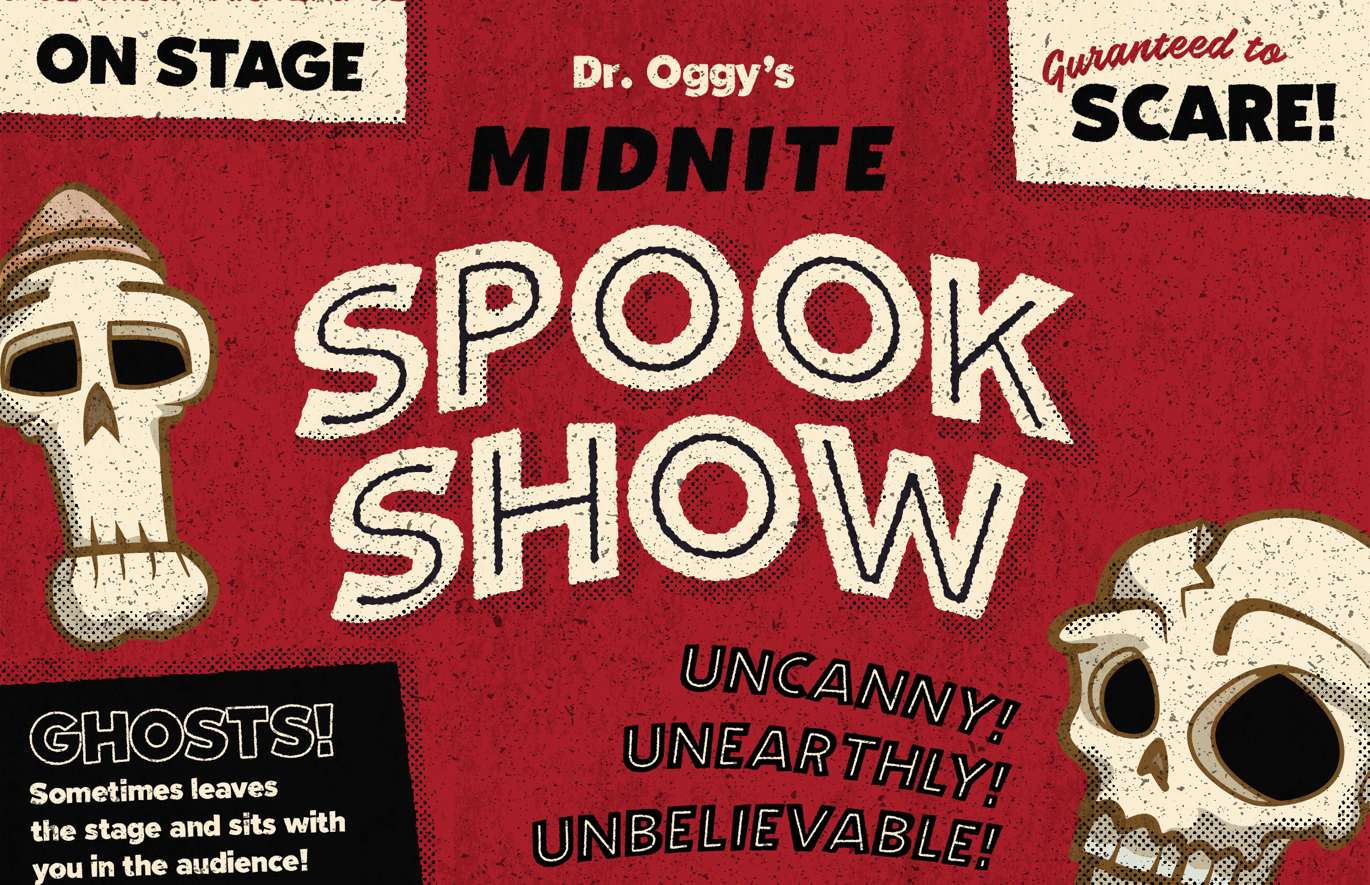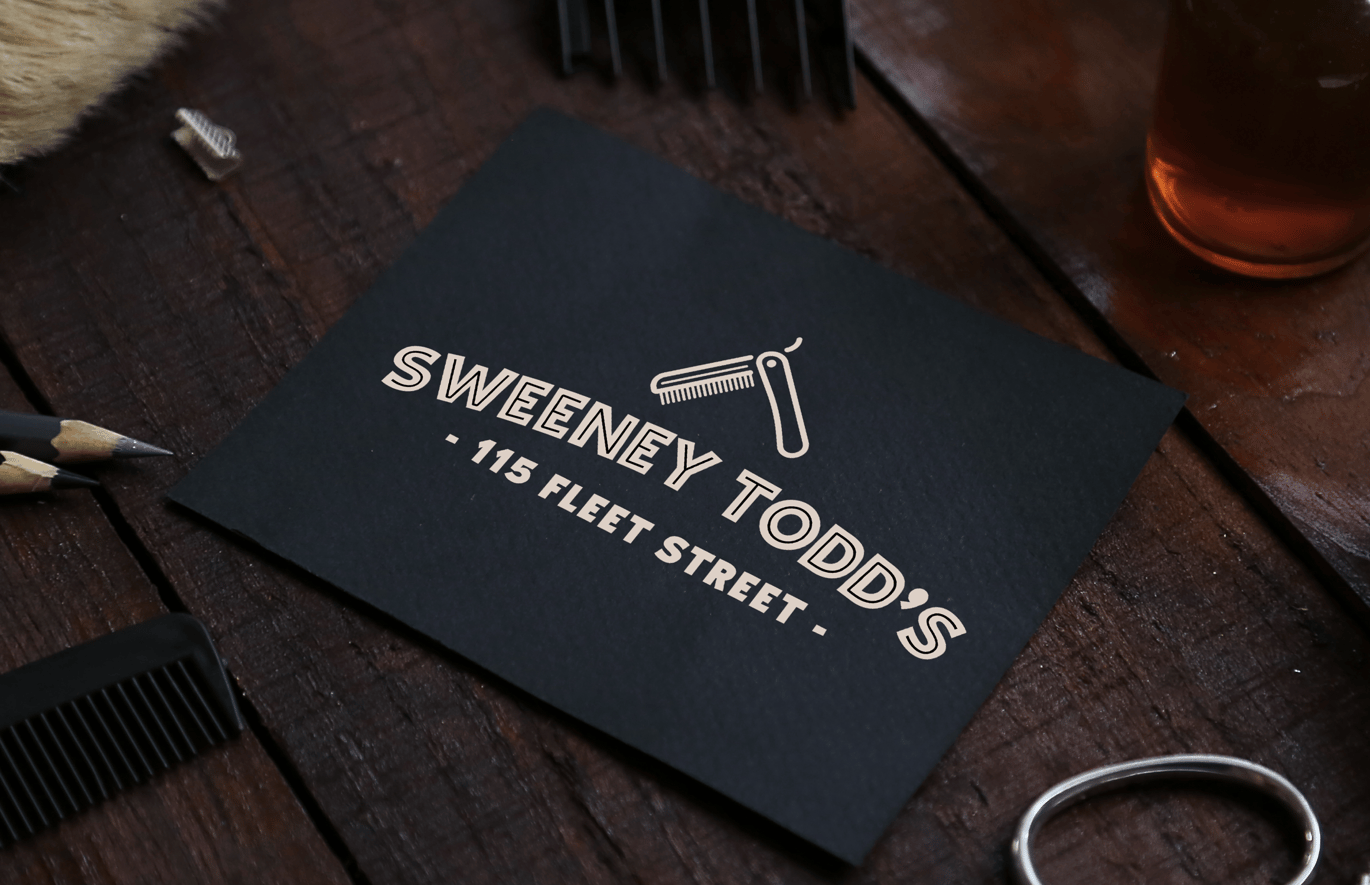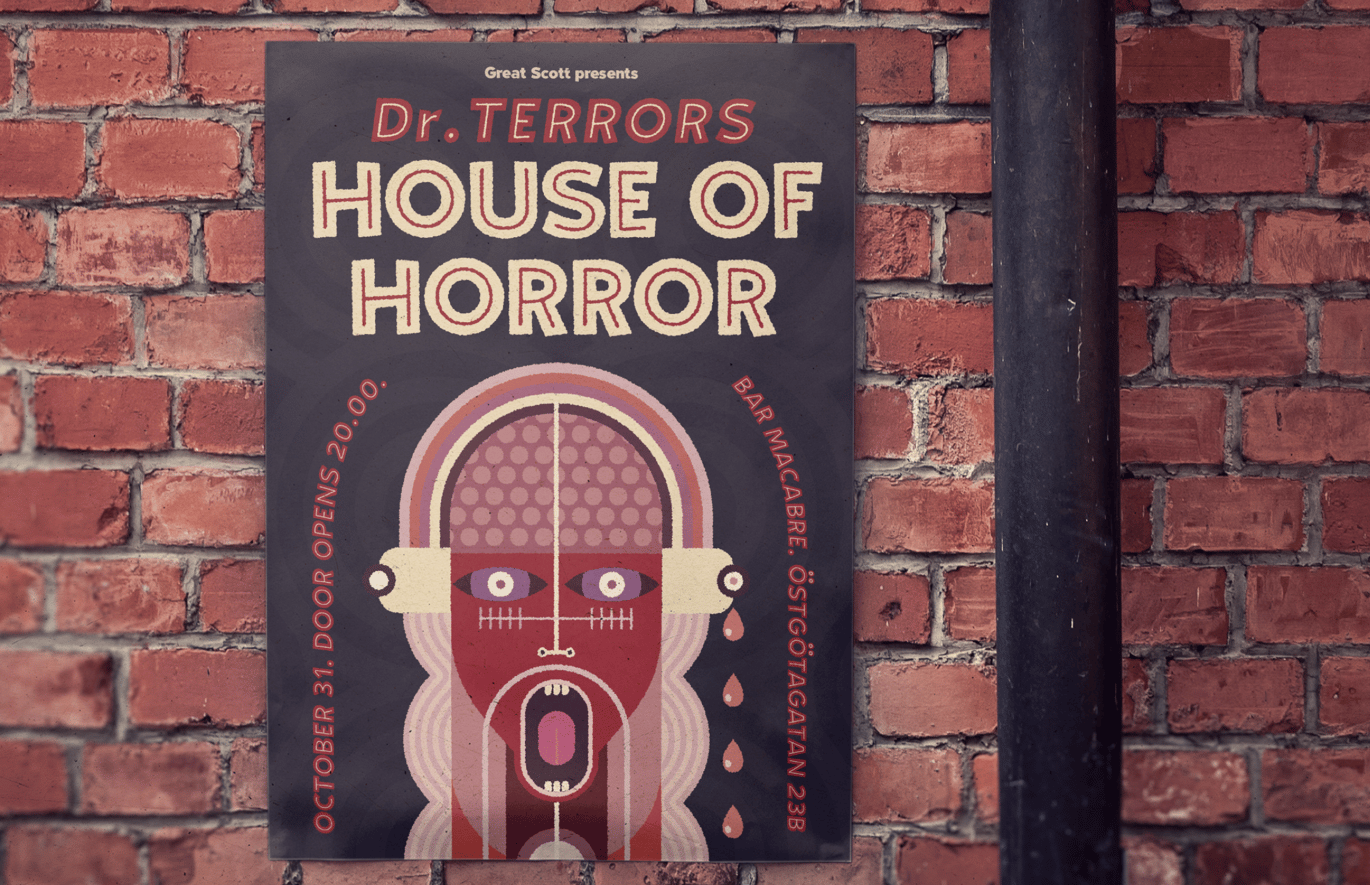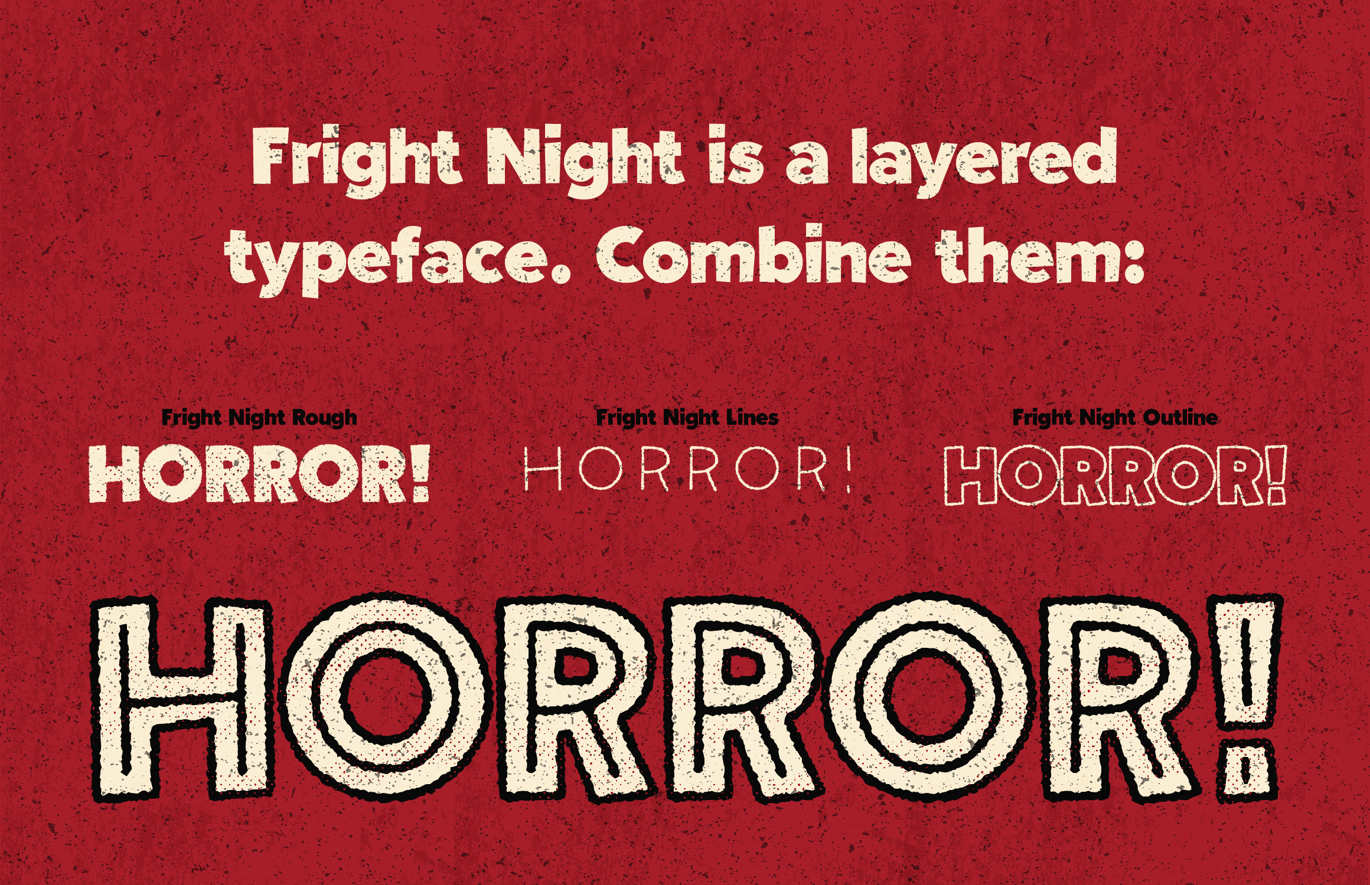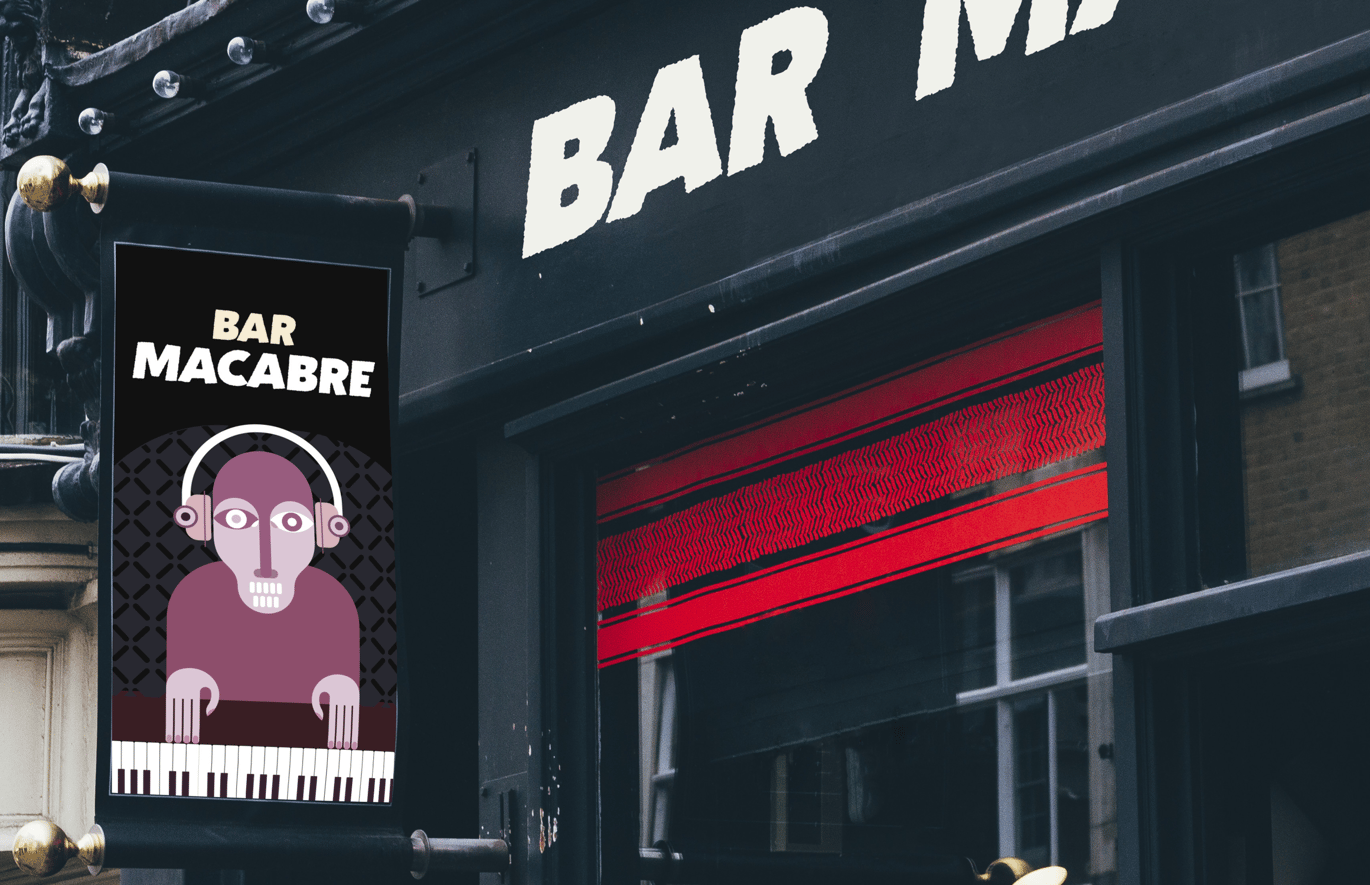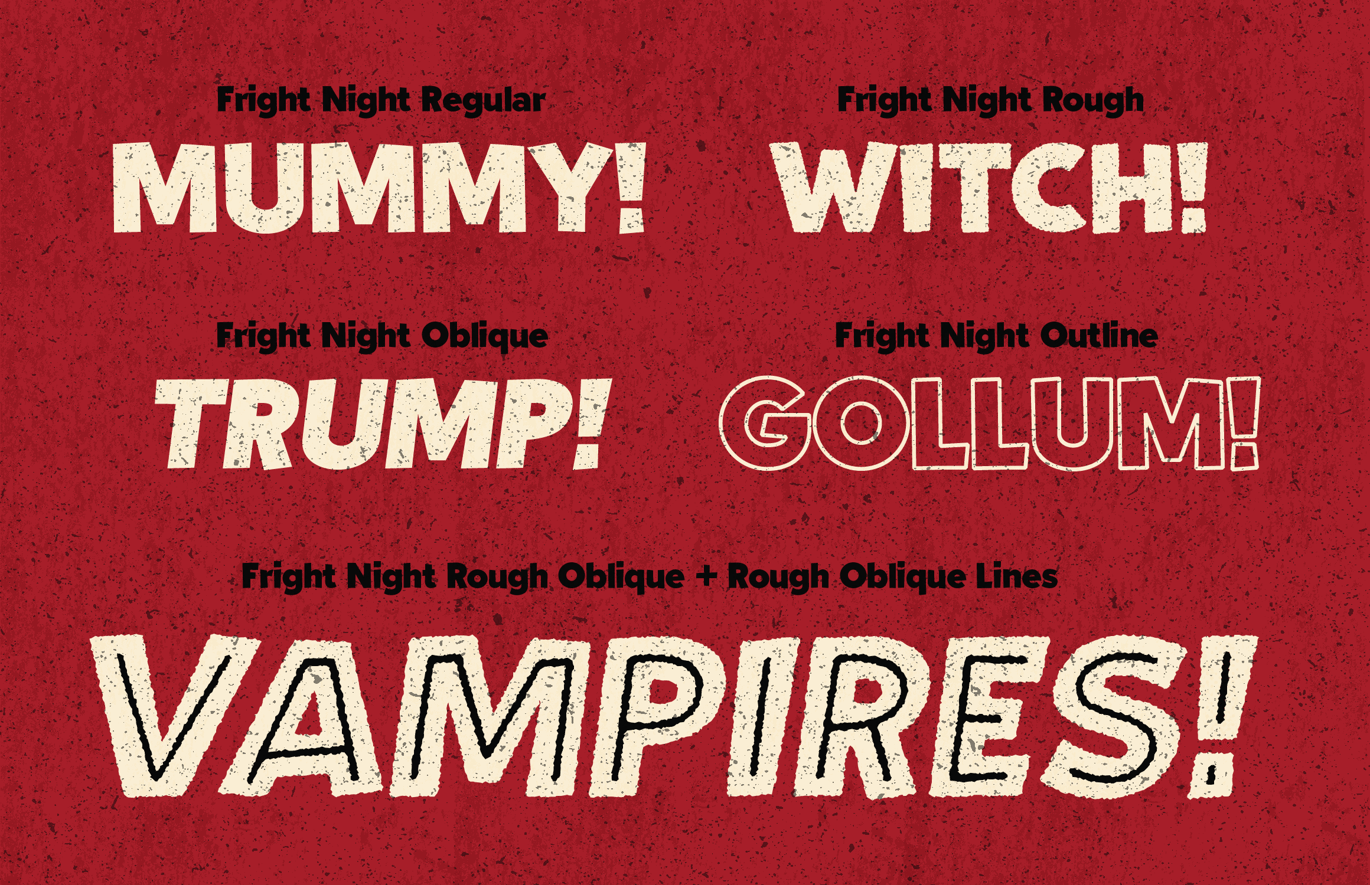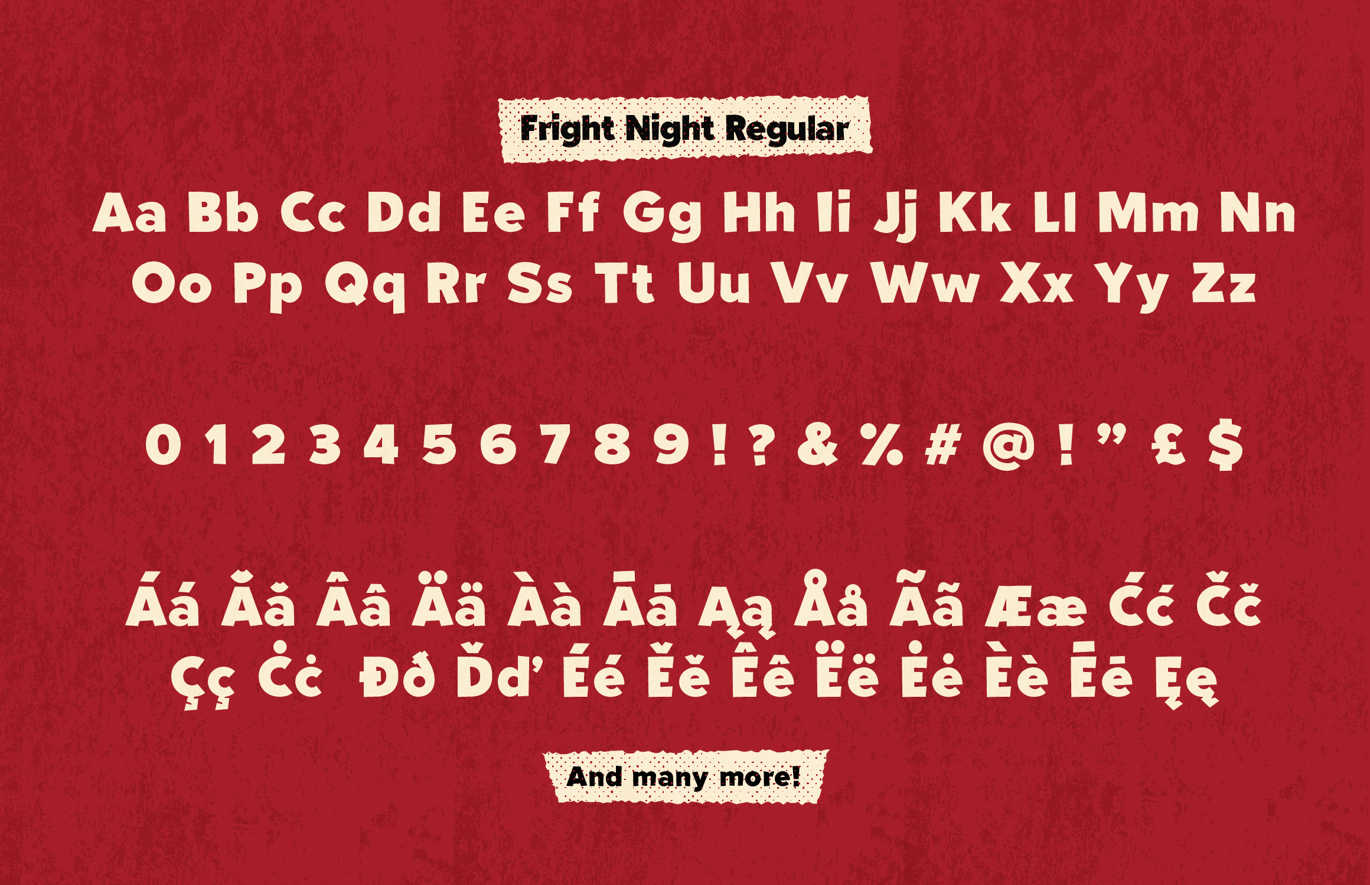
Fright Night – Vintage horror font!
Introducing Fright Night! A vintage horror typeface from Great Scott.
It got thrills, chills and diacritics! With inspiration from vintage horror posters and bold geometric type Fright Night is here to put shills on your next project.
Fright Night comes in several styles and can be combined to create a lot of different looks.
Fright Night has basic latin support as well as a lot of western european characters. Well over 300+ glyphs which should support a wast range of international languages.